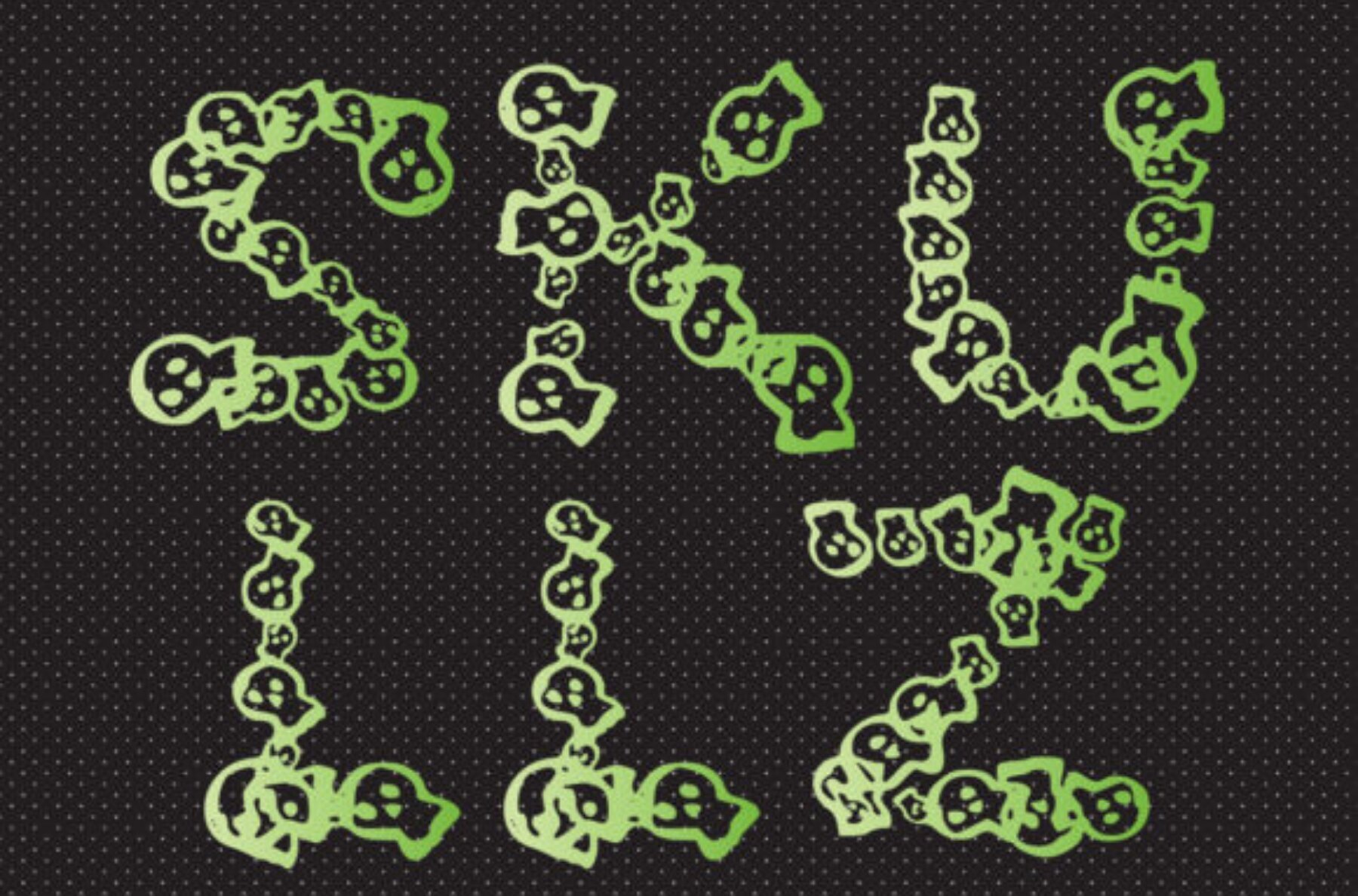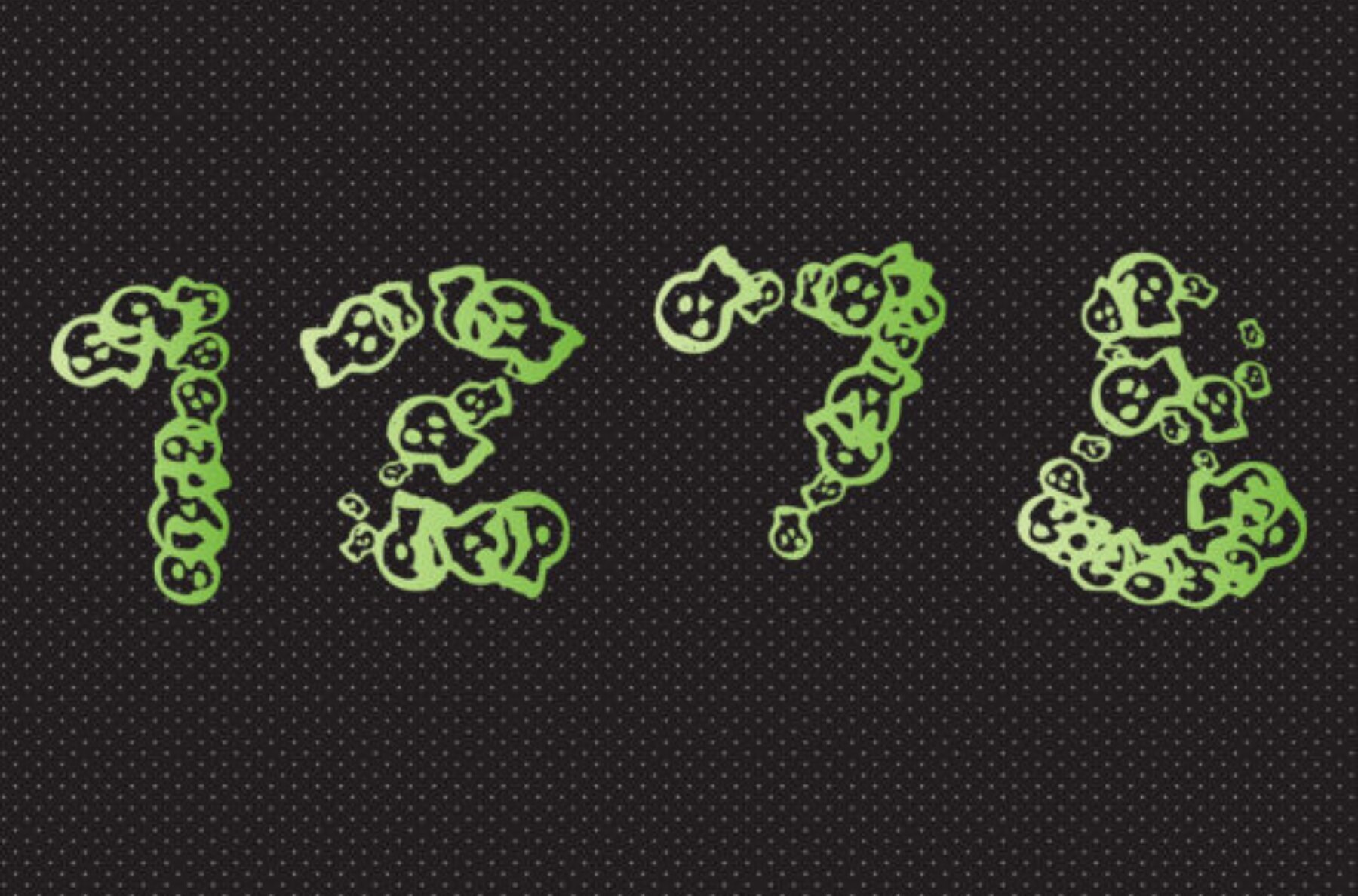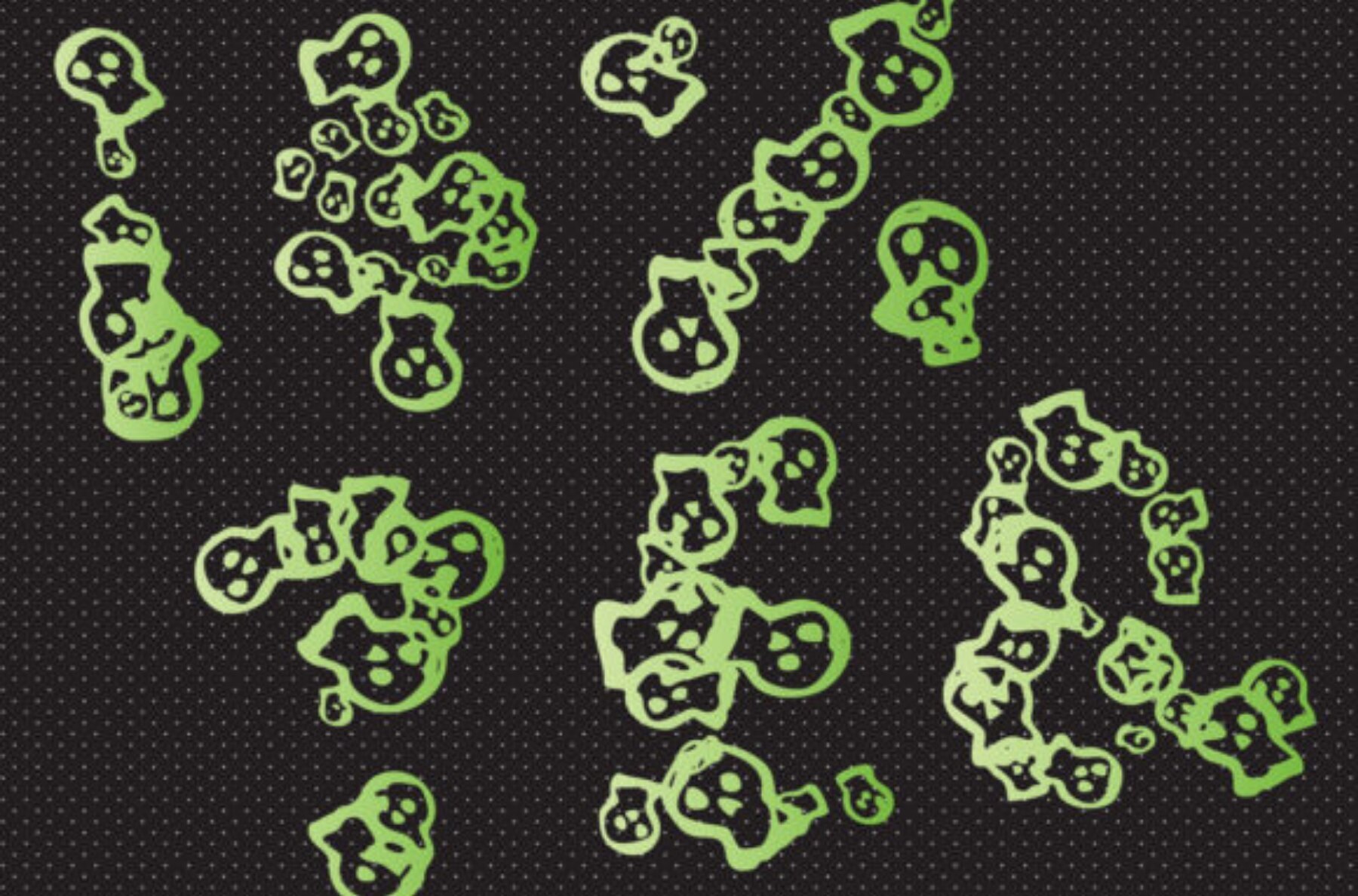
Skullz Font
Skullz
Skullz brings a playful twist to typography with its unique design featuring tiny, cartoon skulls. This quirky display font adds character and excitement to any project, perfect for designers looking to infuse their work with a touch of whimsy and creativity. Ideal for logos, posters, and creative projects, Skullz is guaranteed to catch the eye.Skullz: A Bold Display Font